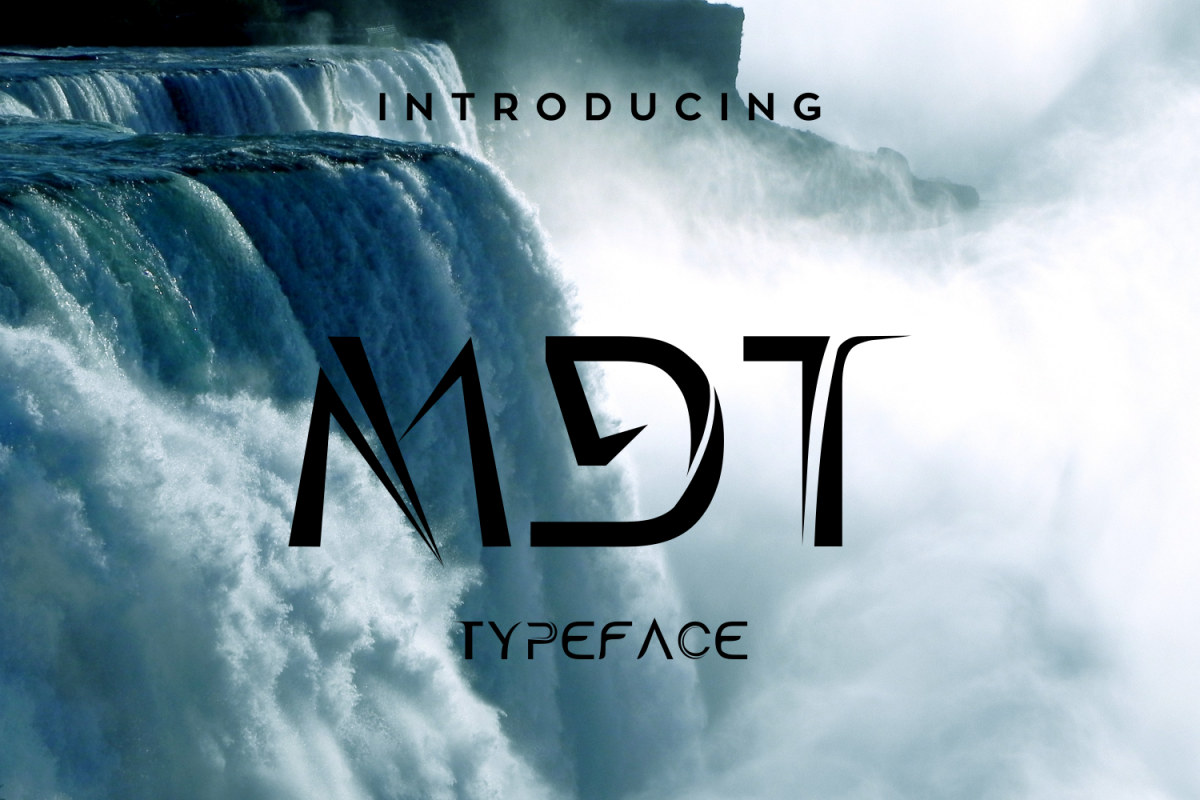
MDT is a modern, minimal and edgy typeface with uppercase characters. MDT is great for creating any type of graphic design, print, t-shirts, logos, posters, flyer, packaging, branding etc.